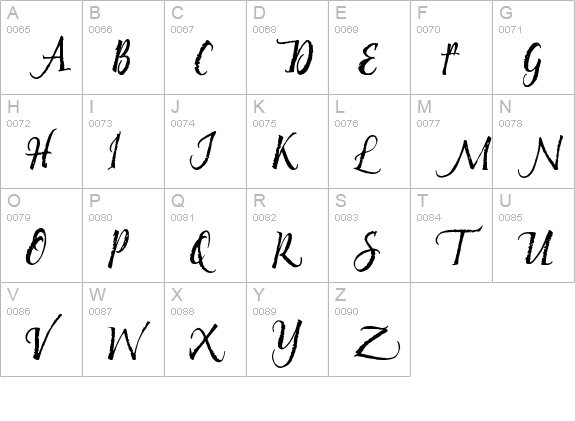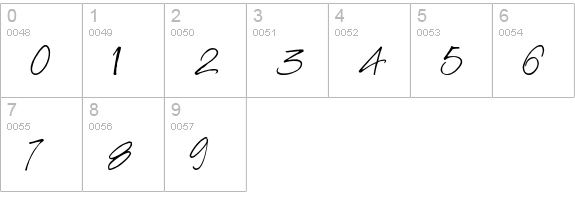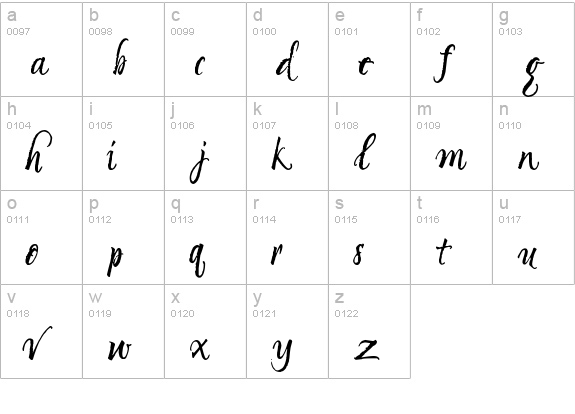
Unnamed Melody Font Details
Unnamed Melody font is a stunning display typeface that exudes elegance and sophistication. Its graceful lines and delicate curves make it perfect for adding a touch of style to any project. The font's unique design sets it apart from the crowd, making it a standout choice for branding, invitations, posters, and more. What makes Unnamed Melody font even more appealing is that it is completely free to download! You can easily access this beautiful typeface at FontsMarket.com, where you can add it to your font collection without any cost. Don't miss out on the opportunity to enhance your designs with the charm and allure of Unnamed Melody font. Download it today and let your creativity soar!